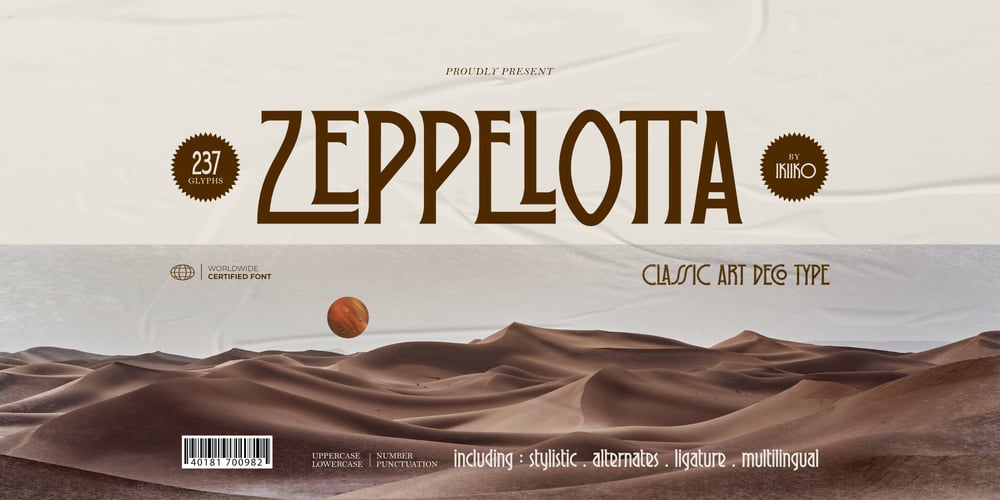
Zeppelotta Font Family was designed by Andhika Pradana and published by IKIIKOWRK. Zeppelotta contains 1 styles and family package options. Proudly present Zeppelotta – Classic Art Deco Type, created by ikiikoZeppelota is a classic serif font adapted from the art deco style, a visual style that emerged in the 1920s and 1930s. This font is characterized by bold geometric shapes, a symmetrical design, and a sense of modernity and glamour. Zeppelotta is designed to have a distinctive classic impression with the presence of decorative elements such as extended lines, neat and tidy decorative shapes and types. These decorative elements can add a sense of sophistication and luxury to text.With a wide selection of alternates and ligatures, you can create a variety of styles and play with this unique fonts.This typeface is perfect for an elegant logo, jewelry stuff, packaging, magazine design, fashion brand, classic stuff, poster, flyer, wedding invitation, quotes, or simply as a stylish text overlay to any background image.What’s Included? Uppercase & Lowercase Numbers & Punctuation Alternates, Stylistic & Ligature Multilingual Support Works on PC & Mac